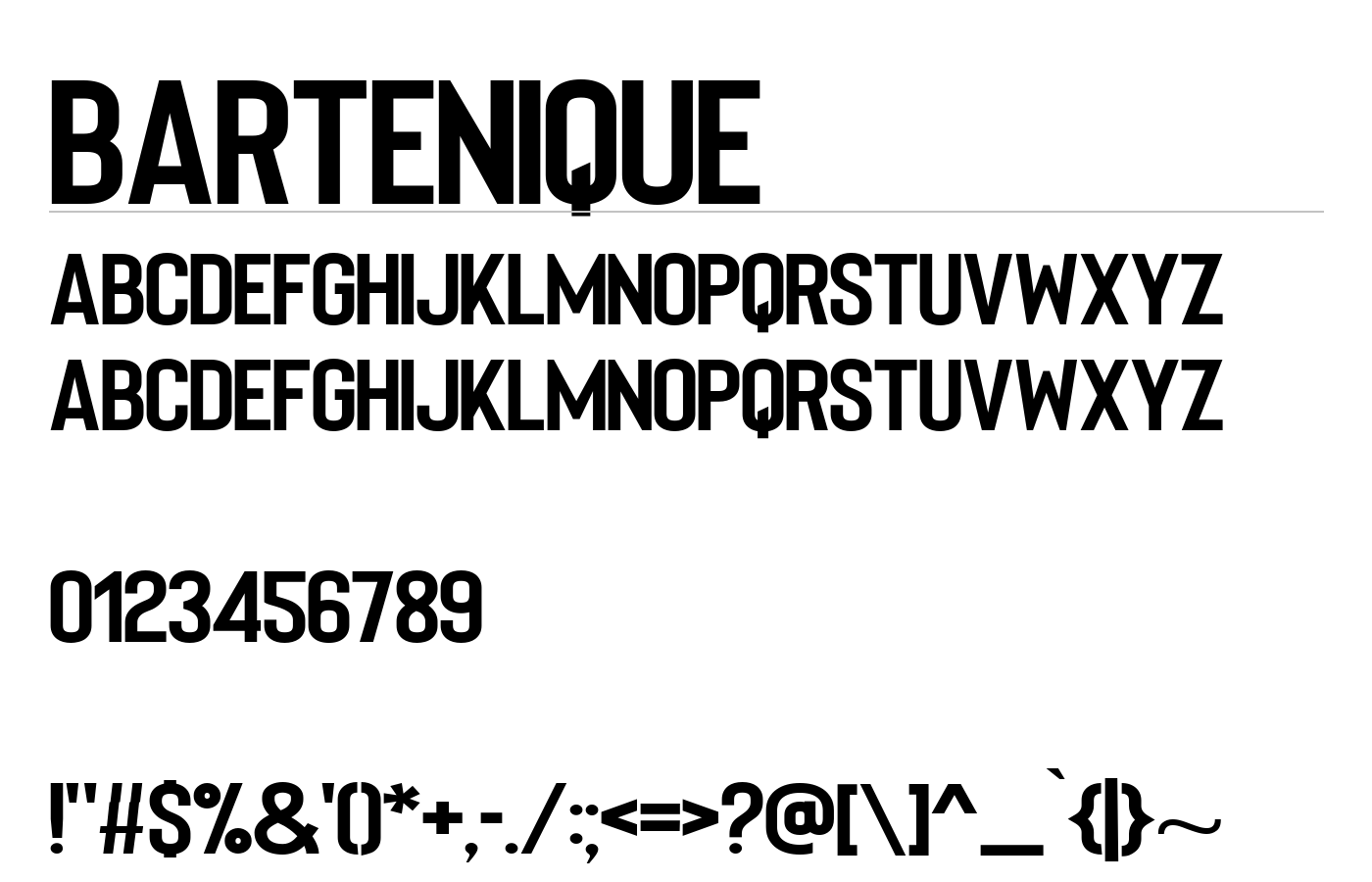
Bartenique is a bold, condensed sans serif font characterized by its tall, narrow letterforms and strong vertical emphasis. Its high contrast between thick and thin strokes combined with geometric shapes gives it a modern, powerful feel that works well for striking headlines, logos, and branding that demand attention. This font’s clean, uppercase design makes it ideal for fashion, editorial, and contemporary design projects seeking a confident and stylish look.
Bartenique Font
About Bartenique Font
| Font family | Bartenique Font |
| Designer | Wahyu Sa |